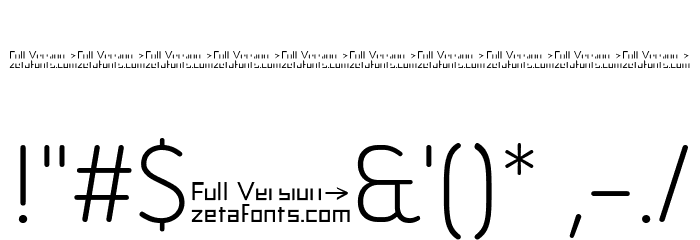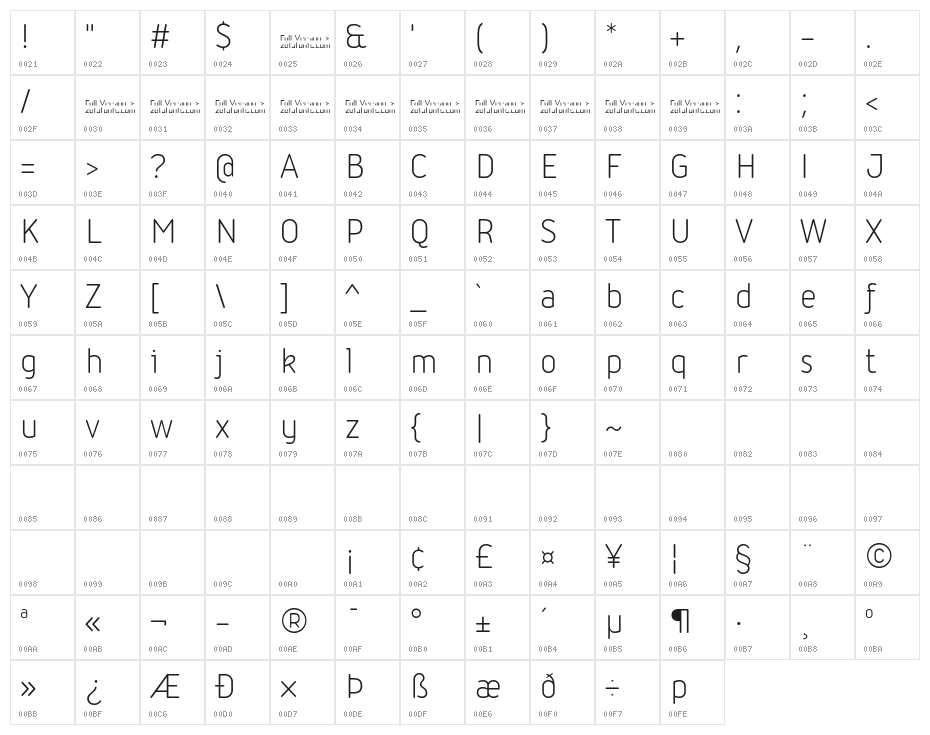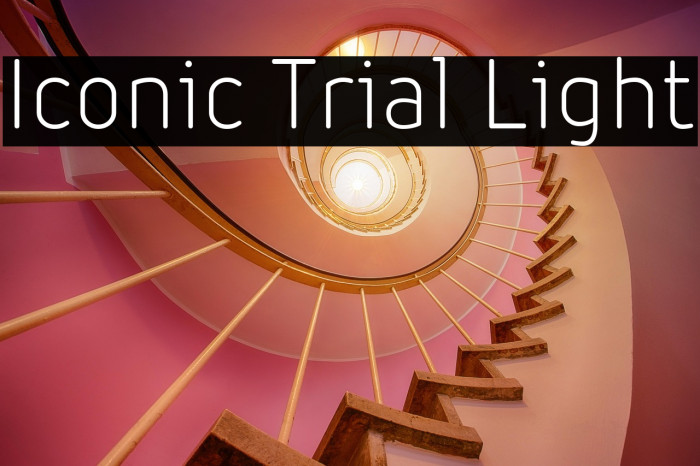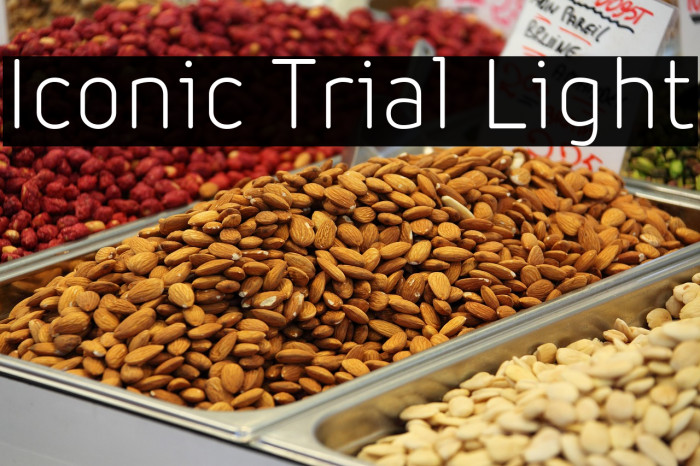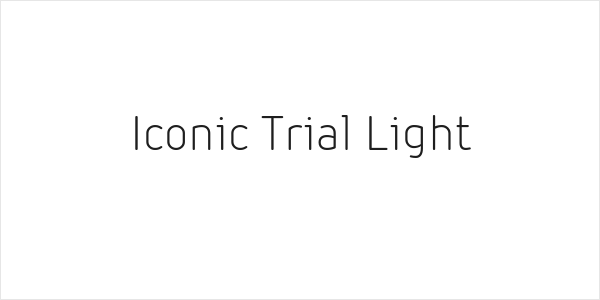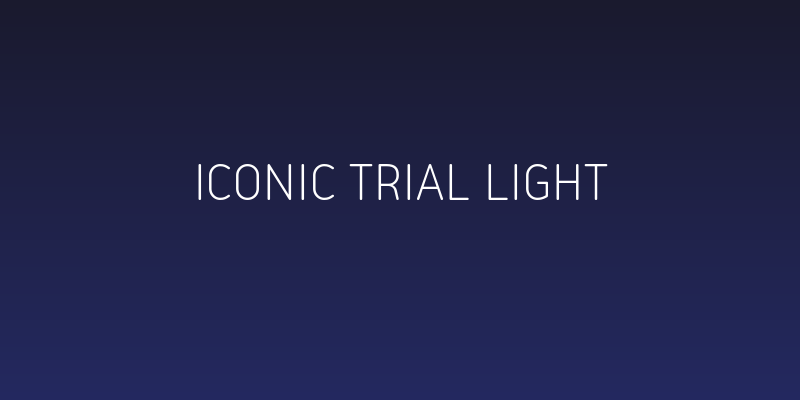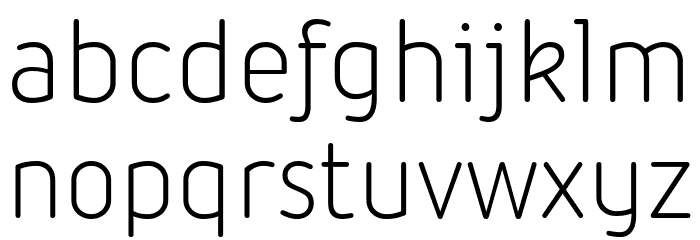
Iconic Trial Light Font
Iconic Trial Light Description
This font features a clean and modern sans-serif design with a light weight, offering a sleek and minimalist appearance. The characters are evenly spaced with a slightly rounded finish, providing a friendly yet professional look. The uppercase and lowercase letters are well-balanced, and the numerals are clear and easy to read. Special characters are distinct and maintain the overall aesthetic of the font. Its simplicity and clarity make it versatile for various design applications.
| Proposed Projects | Ideal for branding, web design, user interfaces, and print materials where a modern and clean look is desired. |